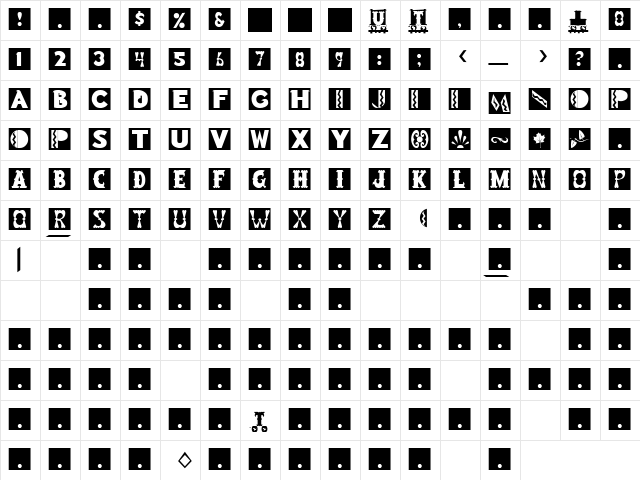
Boots 4 " " " " " " "
Design Context for Boots 4 Typeface
Boots 4 is a composed and adaptable typeface that performs quietly and consistently across a wide range of design contexts.